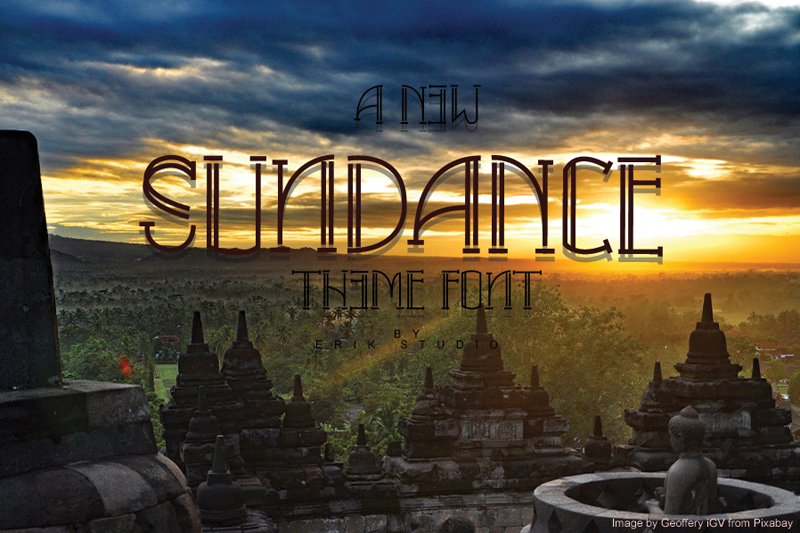
Preview and download Sundance Font. Created by Erik Luluk in Fancy Retro styles with Free for personal use license.
Font name: | Sundance |
Sundance is a cute and fun display font. It embodies playfulness and authenticity and is the perfect choice for any children�s activity or school project. Add this chunky lettered font to your designs and notice how it makes them come alive. Attention : Sundance display font is prohibited to use this font for commercial purposes or for profit without the permission of the author/admin, without being known to use this font without permission, will be subject to sanctions 5x the specified price. This font is used only for demos (Demo license) If you want to use this font for commercial use please contact email: erikluluk0@gmail.com or click the link below: https://www.creativefabrica.com/product/sundance-2/ref/745146/ If you want to see more other fonts, please click:https://www.creativefabrica.com/designer/erik-studio/ref/745146/ Any donations are very appreciated. Paypal account for donation: https://paypal.me/erikstudio1 thanks. |